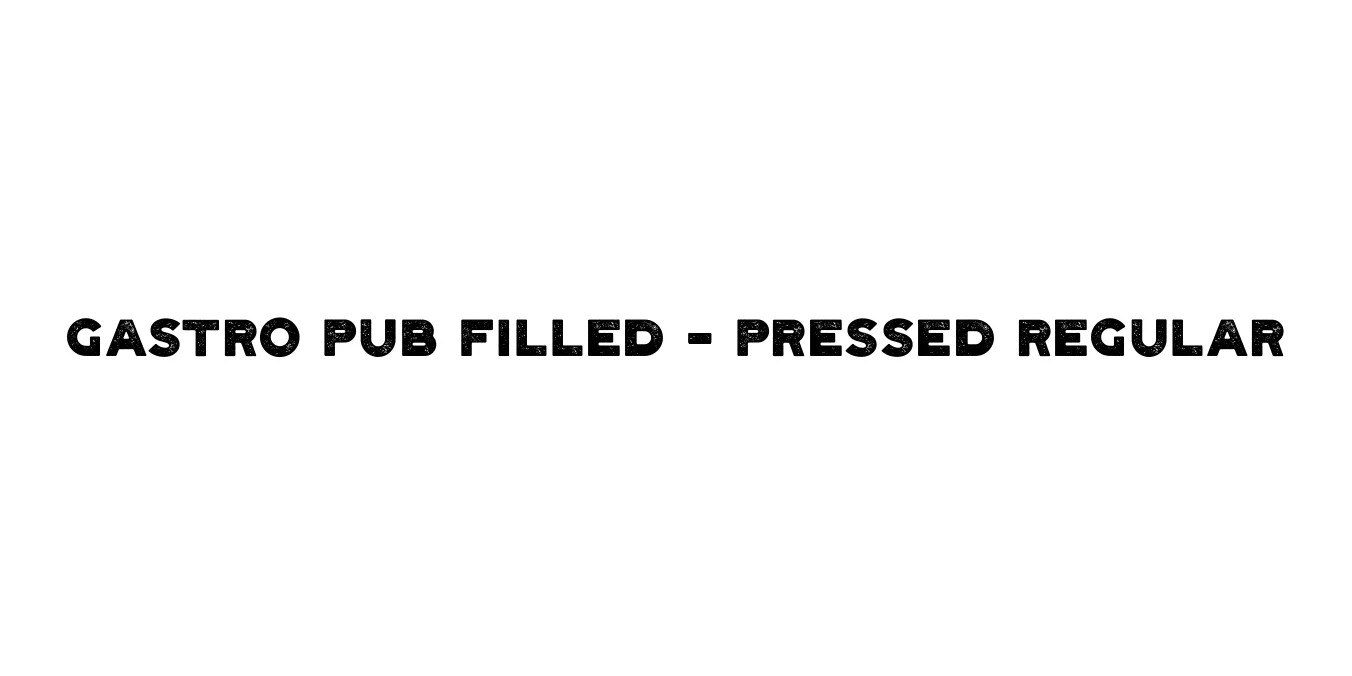
Gastro Pub Filled - Pressed Regular
Designed by Alex Joganic (The Routine Creative)
| Category | Display / Vintage |
| Designer | Alex Joganic (The Routine Creative) |
Gastro Pub Filled - Pressed Regular is a rugged, vintage-inspired display typeface designed to evoke the nostalgic charm of classic signage and hand-painted lettering found in mid-century eateries. It features a robust, bold structure with a distinct "pressed" texture that mimics the look of ink bleeding into paper or weathered paint on wood, making it a favorite for artisanal branding projects.
This specific "Filled" version provides a solid, impactful silhouette while maintaining the distressed edges characteristic of the Gastro Pub family. Its versatile nature allows it to work seamlessly in both digital and print media, particularly for headers and logos that require a touch of authentic, old-world character combined with modern readability.
Gastro Pub Filled - Pressed Regular Best Uses
Perfect for creating weathered, artisanal brand identities with a heritage feel.
Ideal for gastropubs, cafes, and rustic restaurants looking for a classic look.
Excellent for vintage-style t-shirts, caps, and merchandise graphics.
Provides high-impact display text for event flyers and promotional advertising.